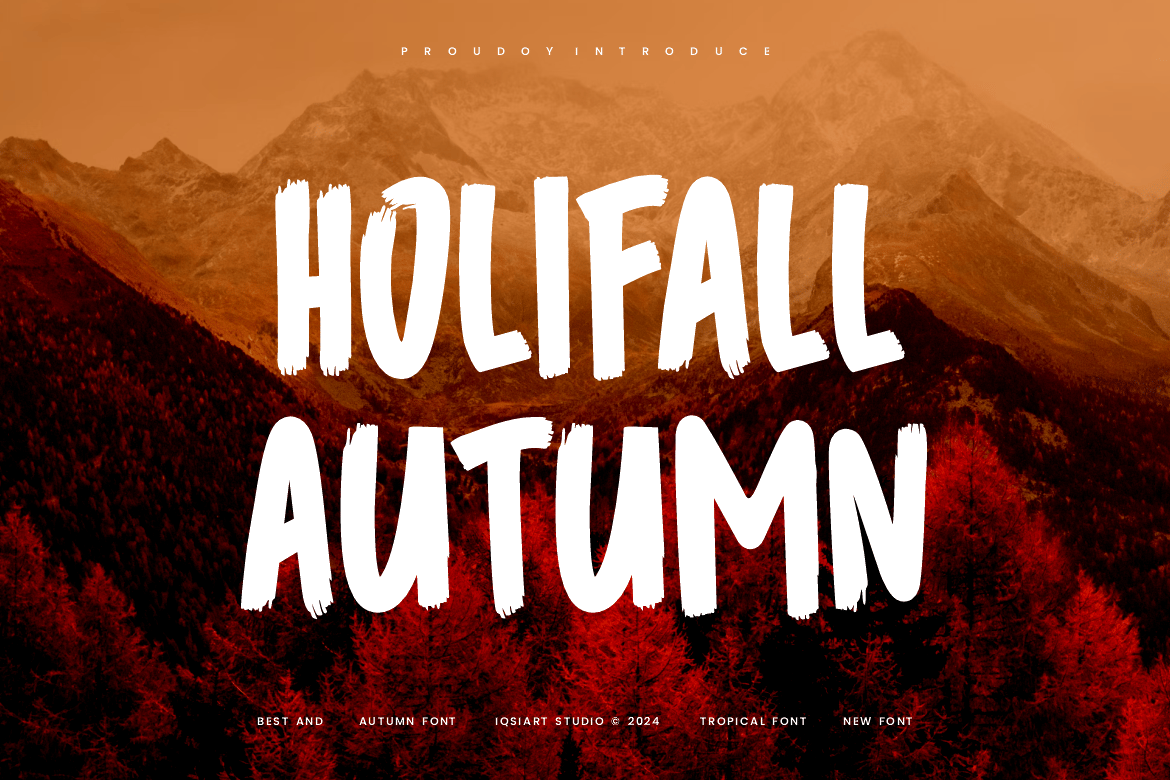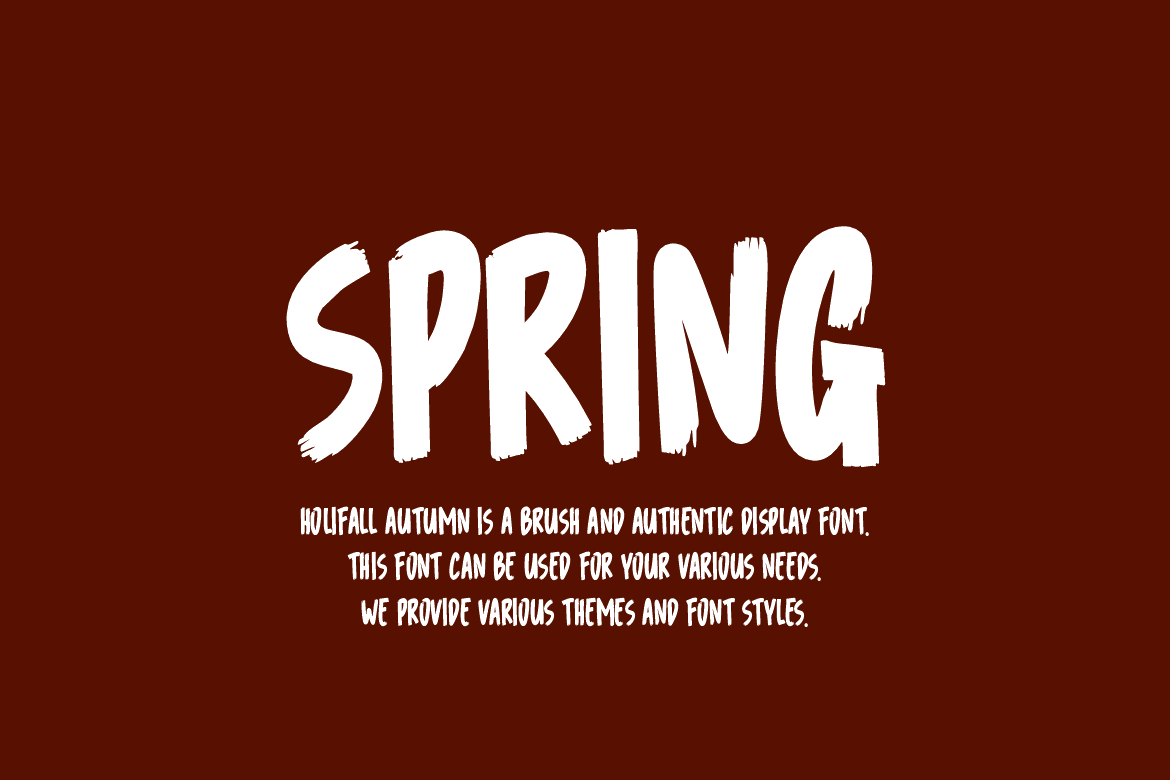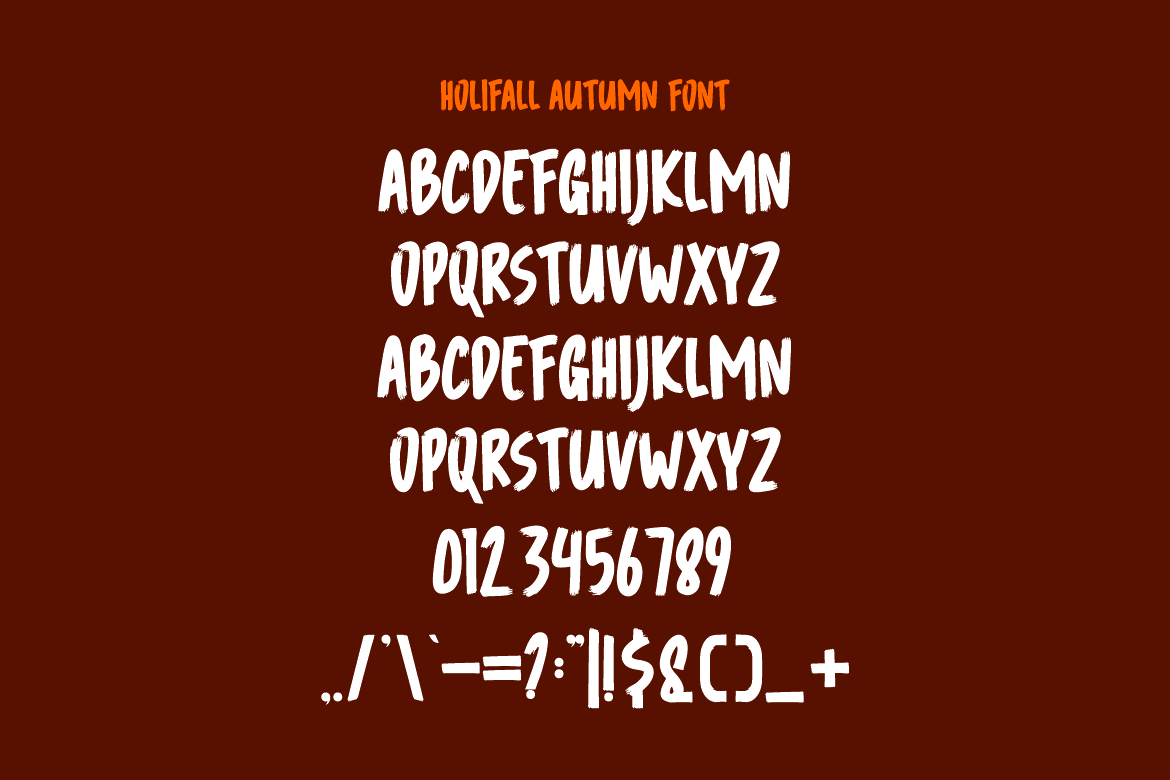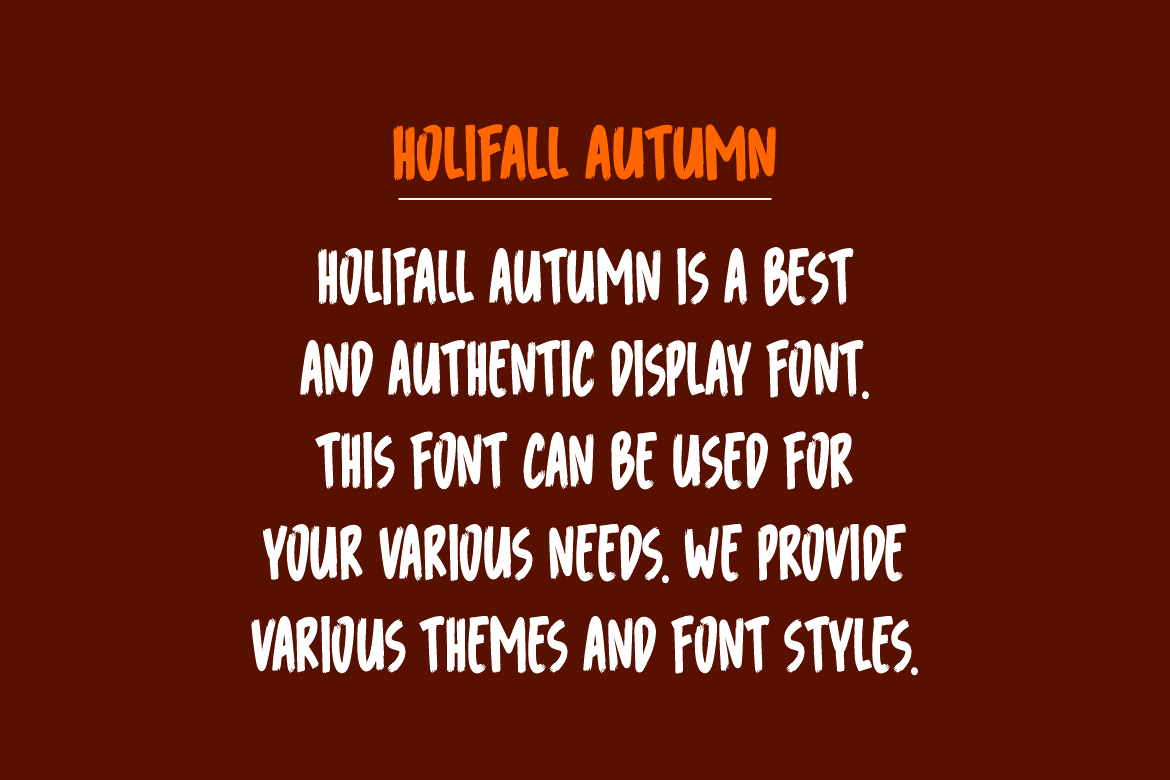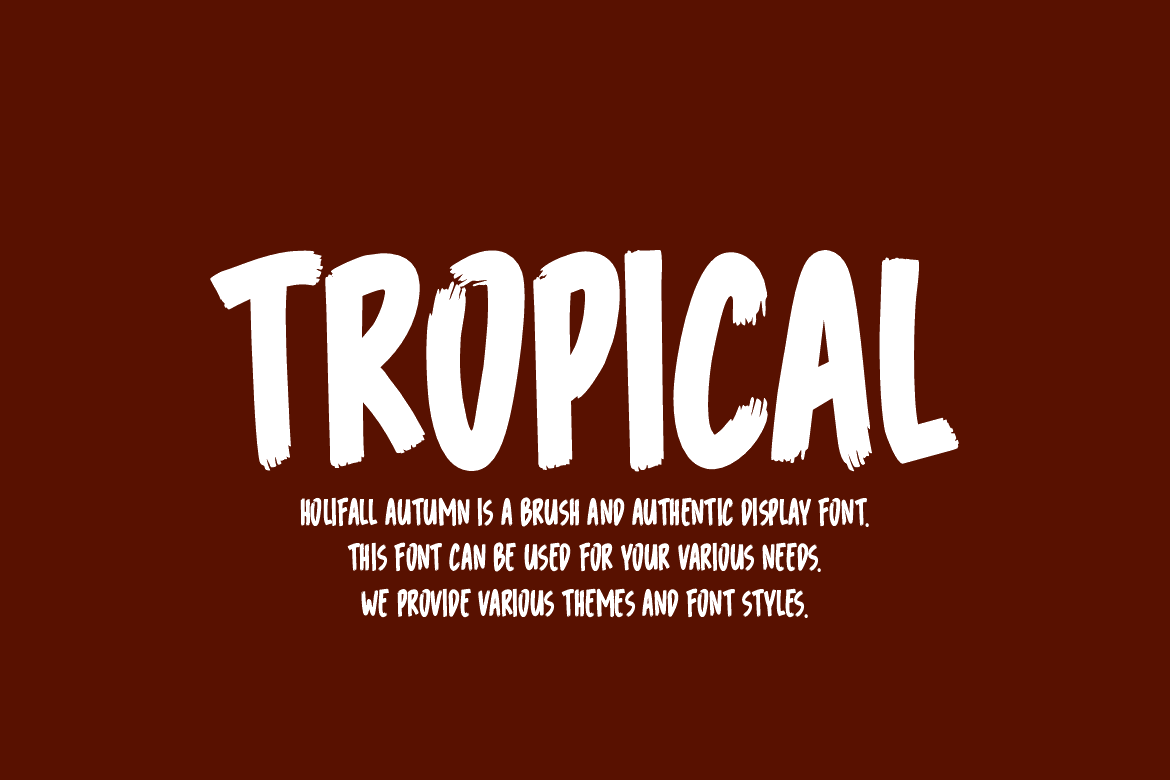
Holifall Autumn – Tropical Fall Font
Holifall Autumn Font is a best and authentic display font.
This font can be used for your various needs.
We provide various themes and font styles.